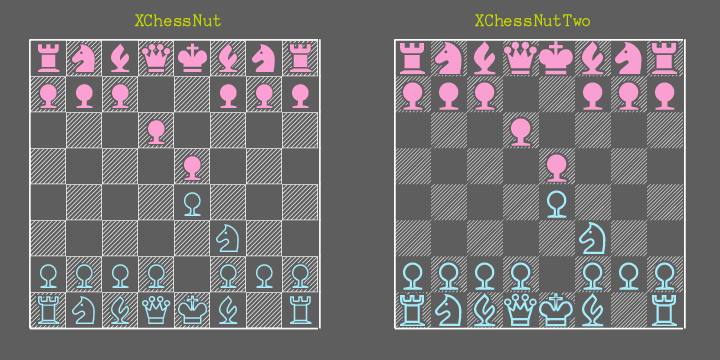
In 1994 I had a lot of fun designing chess fonts. ChessNut contains two chess fonts that look a bit like actual chess pieces. The key layout is a little complicated. To get a piece on a black square, one must use two characters, one for the piece and another that has no width for the blackground. I wrote a little program for the Macintosh to help set up keyboards several years ago, and if you search for ChessEdit on the internet, you may still find a copy.